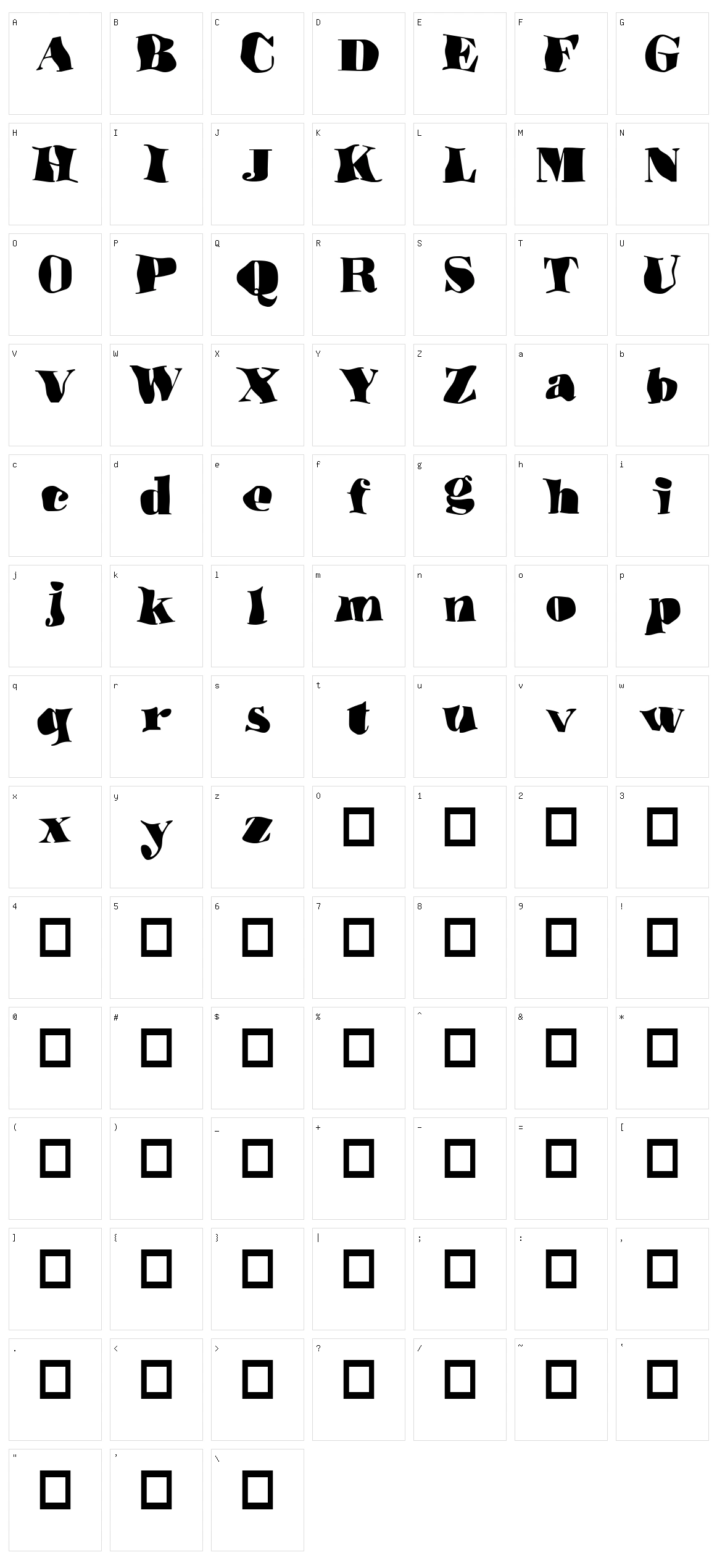
The free font Underwater Love is carefully designed by Blonde Fonts, showcasing a thoughtful balance of creativity and usability and falls under the Distorted font style. When you download the ZIP file, it contains only 13.15 KB of font files, making it lightweight and quick to download. Please review the license details below to understand permitted usage and distribution rights. If license information is not available, we recommend using this font for personal projects only or contacting the author directly for commercial usage permissions.